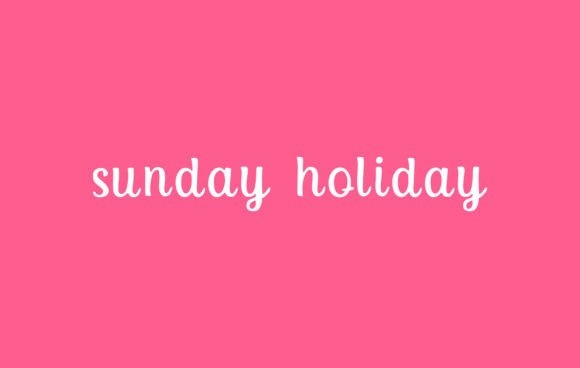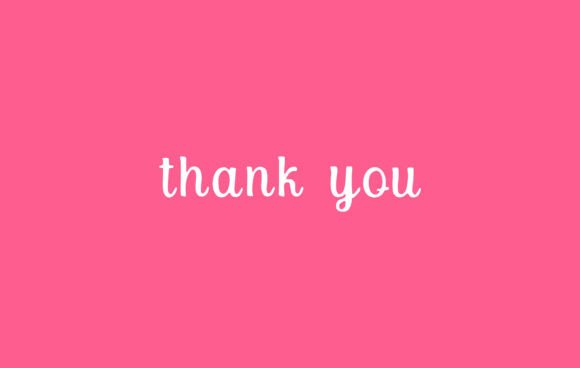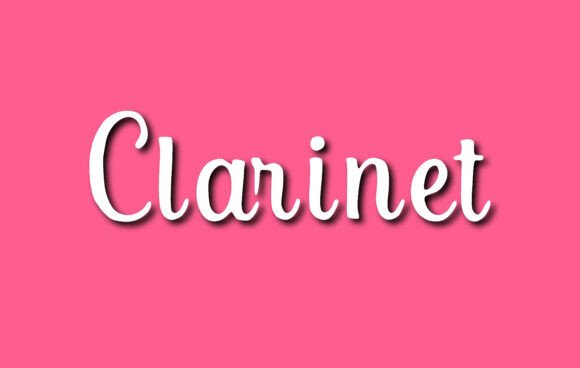
Introducing Clarinet Font: The Sweet and Smooth Script Font for Elegant Designs
Are you looking for a font that combines the softness of handwritten curves with the clarity of a clean sans-serif edge? Look no further than Clarinet Font, a sweet and smooth script font that is perfect for a variety of design projects. With its slightly upright, semi-connected style, Clarinet is a versatile font that can be used for quotes, feminine branding, invitation cards, lifestyle blogs, and digital products.
What Makes Clarinet Font So Special?
Clarinet Font is a unique and elegant font that blends the best of both worlds – the softness of handwritten curves and the clarity of a clean sans-serif edge. Its light and graceful flow makes it perfect for designs that require a touch of sophistication and elegance. The font’s rounded ends and upright strokes create a friendly, approachable vibe that’s perfect for both casual and elegant contexts.
Clarinet Font is a highly versatile font that can be used for a wide range of design projects. Here are some ideas to get you started:
- Quotes: Use Clarinet Font to add a touch of elegance to your quotes and sayings. The font’s smooth and flowing curves make it perfect for designs that require a touch of sophistication.
- Feminine Branding: Clarinet Font is perfect for feminine branding projects, such as logos, business cards, and packaging. The font’s soft and delicate curves create a feminine and elegant look that’s sure to appeal to your target audience.
- Invitation Cards: Make your invitation cards stand out with Clarinet Font. The font’s elegant and sophisticated style is perfect for weddings, baby showers, and other special occasions.
- Lifestyle Blogs: Use Clarinet Font to add a touch of elegance to your lifestyle blog. The font’s smooth and flowing curves make it perfect for designs that require a touch of sophistication.
- Digital Products: Clarinet Font is perfect for digital products, such as ebooks, printables, and planners. The font’s clear and readable style makes it easy to read on digital devices.
Why Choose Clarinet Font?
There are many reasons why you should choose Clarinet Font for your next design project. Here are a few:
- Unique and Elegant Style: Clarinet Font has a unique and elegant style that’s sure to make your designs stand out.
- Highly Versatile: Clarinet Font is a highly versatile font that can be used for a wide range of design projects.
- Easy to Read: Clarinet Font is clear and easy to read, making it perfect for designs that require a touch of sophistication.
- Perfect for Branding: Clarinet Font is perfect for branding projects, such as logos, business cards, and packaging.
Tips for Using Clarinet Font
Here are a few tips for using Clarinet Font in your designs:
- Use it for Headings: Clarinet Font is perfect for headings and titles. Use it to add a touch of elegance to your designs.
- Pair it with Other Fonts: Clarinet Font can be paired with other fonts to create a unique and interesting look.
- Experiment with Colors: Clarinet Font looks great in a variety of colors. Experiment with different colors to find the one that works best for your design.